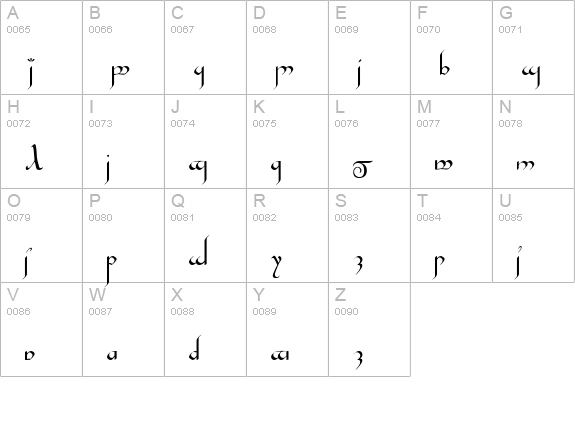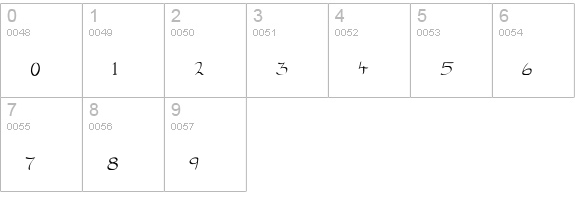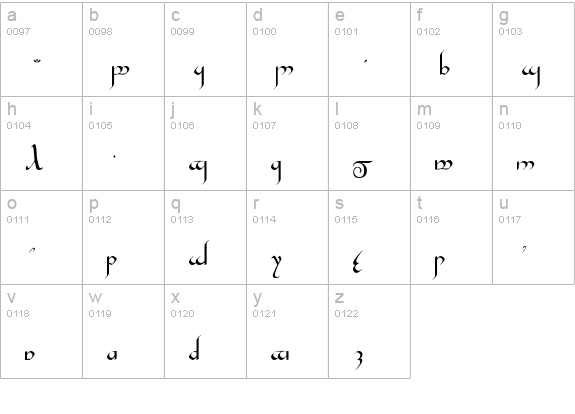
Tengwar Gandalf Medium Font Details
Tengwar Gandalf Medium is a balanced, medium-weight variant in the Tengwar typeface family \xE2\x80\x94 well suited to sub-headlines, navigation, and balanced editorial work.
Tengwar Gandalf Medium font is a stunning and enchanting typeface that captures the essence of the elven script from J.R.R. Tolkien's Middle-earth. Inspired by the iconic writings of the wise wizard Gandalf, this font exudes a sense of mystery and magic, making it perfect for any fantasy-themed design project. With its elegant and intricate letterforms, Tengwar Gandalf Medium font brings a touch of elven grace to your typography. Each character has been meticulously crafted, paying homage to the rich history and mythology of Tolkien's world. Whether you are creating a book cover, a movie poster, or a logo for a fantasy game, this font will transport your audience to a realm of imagination and wonder. And the best part? Tengwar Gandalf Medium font is available for free! That's right, you can download this captivating typeface at FontsMarket.com without having to spend a single coin. We believe that creativity should be accessible to all, and we are proud to offer this incredible font as a gift to the design community. So, don't miss out on the opportunity to add a touch of elven magic to your designs. Download Tengwar Gandalf Medium font today and unleash your imagination!